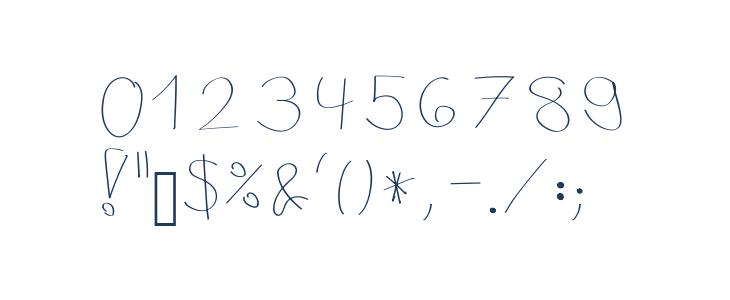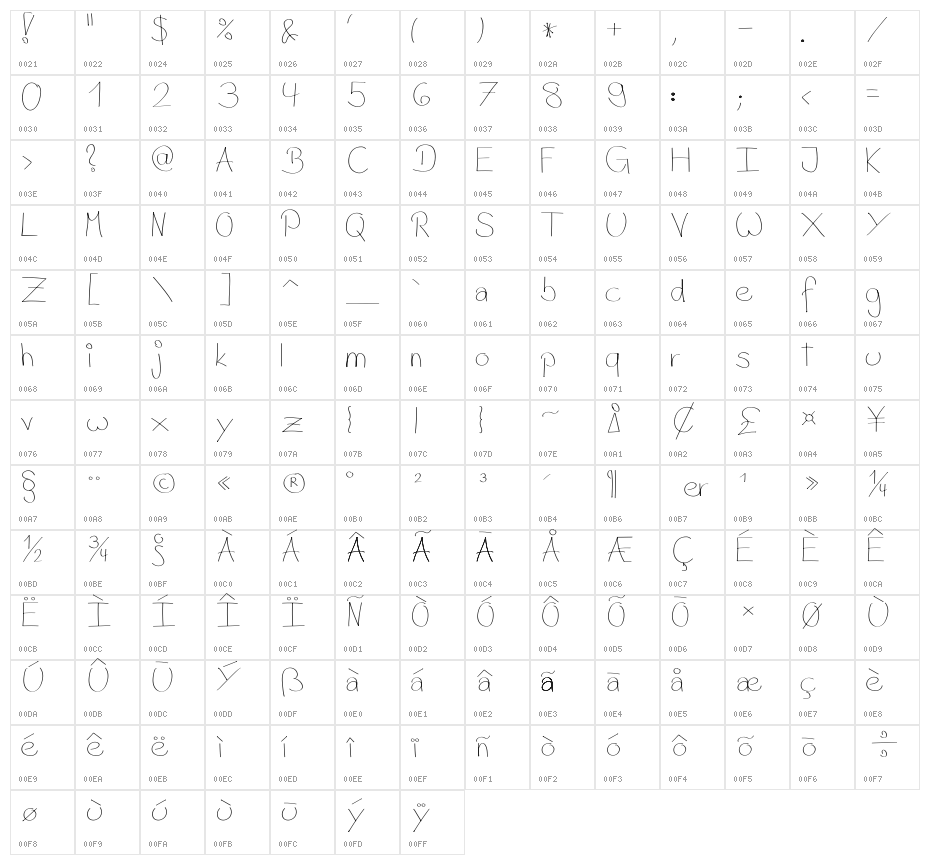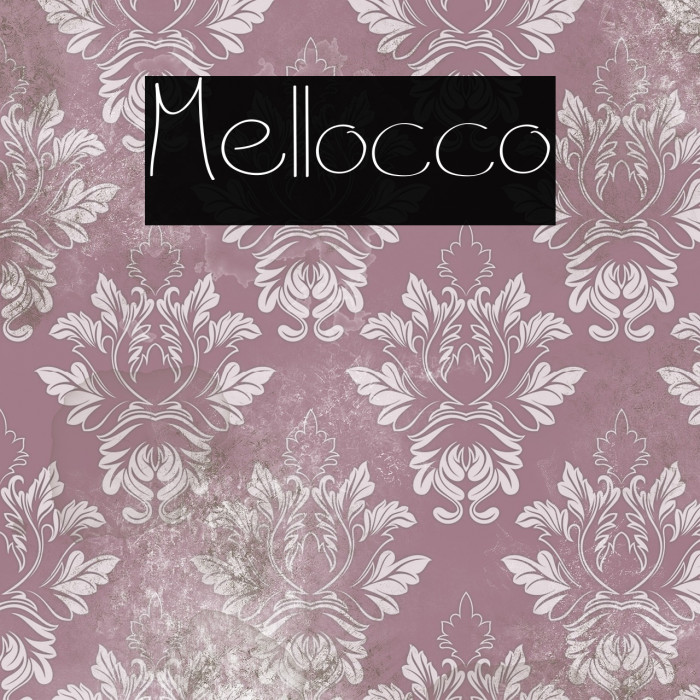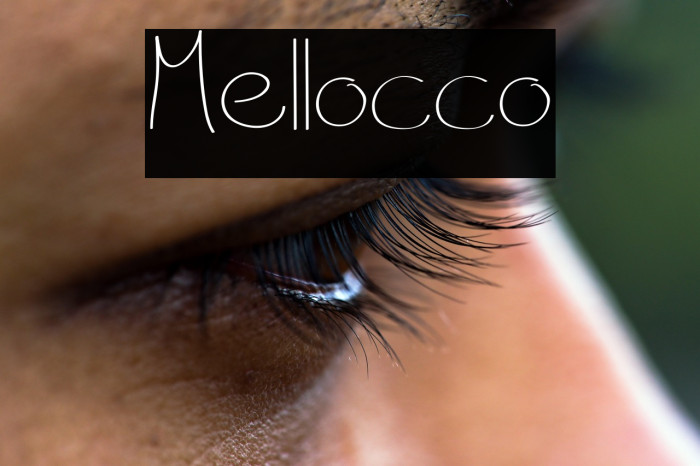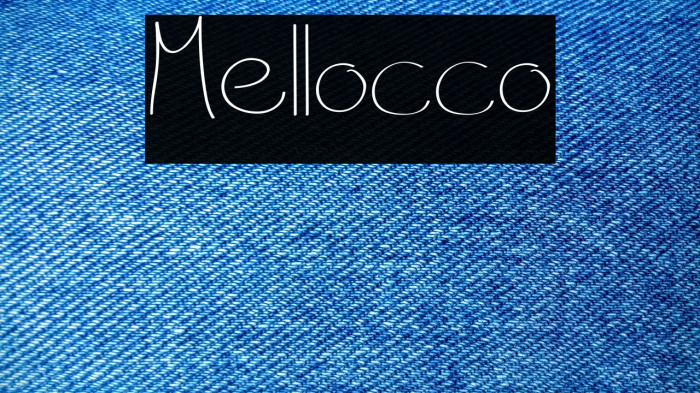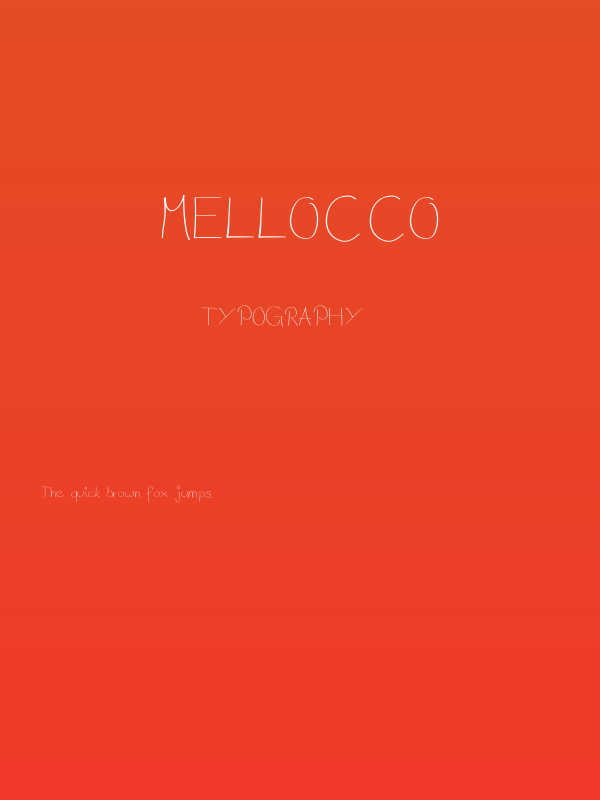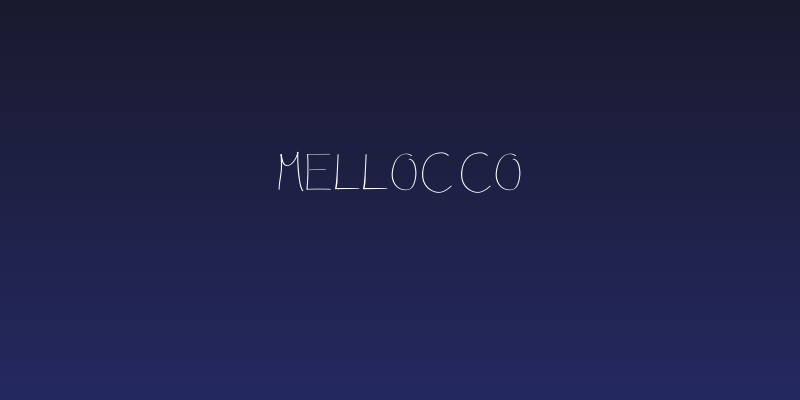
Mellocco Font
Mellocco Description
This font features a playful and whimsical design, characterized by its thin, uneven strokes and a hand-drawn appearance. The letters have a casual, informal style with a slight tilt, adding to its charm. The uppercase letters are tall and narrow, while the lowercase letters are more rounded and open. The numbers and special characters maintain the same quirky aesthetic, making the font suitable for creative and artistic projects. Its unique style is perfect for adding a personal touch to designs.